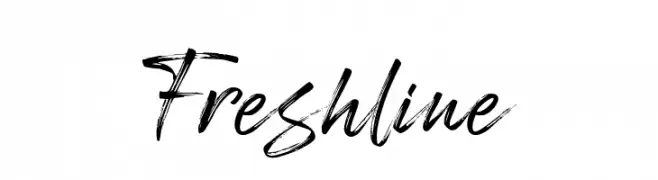
A cursive, handwritten font with elegant, flowing strokes.
A bold, playful font with brush-like strokes and a modern, decorative style.
A dynamic, expressive handwritten font with fluid strokes and varying widths.
A playful, hand-drawn font with bold, rounded characters.
A bold, distressed font with a vintage, hand-printed look.
A playful and whimsical font with bold, exaggerated serifs and lively curves.
A classic serif font with elegant curves and moderate contrast.
A bold, expressive script font with flowing, interconnected characters.
A bold, futuristic font with playful star motifs and rounded, blocky characters.
A bold, playful handwritten font with rounded edges and consistent stroke thickness.